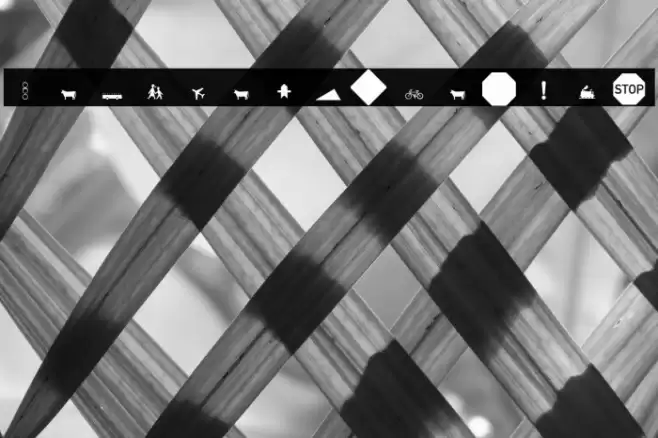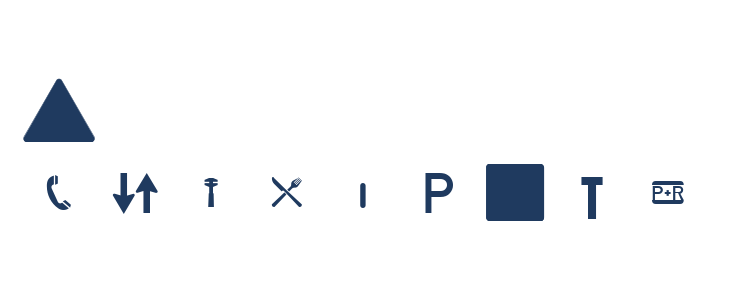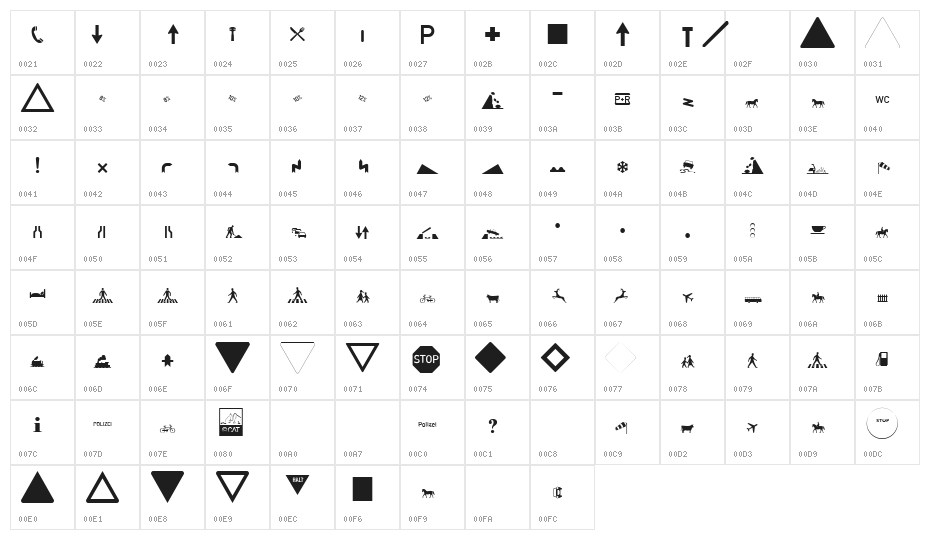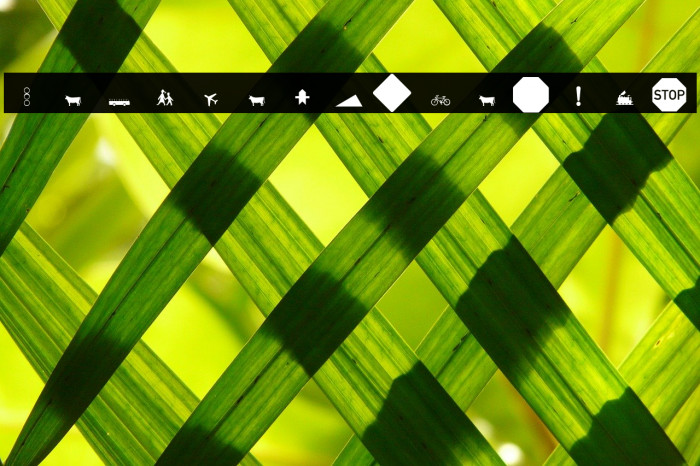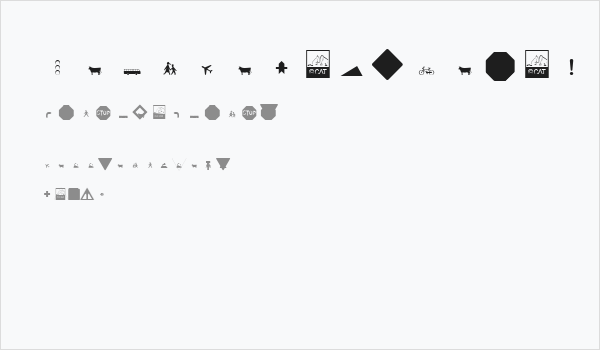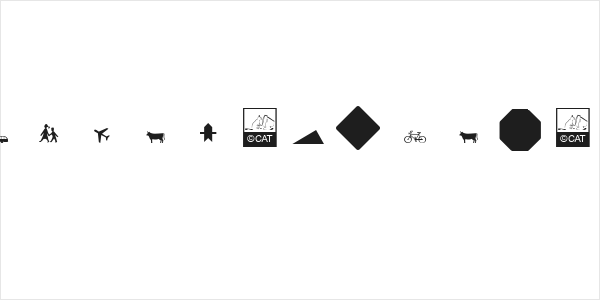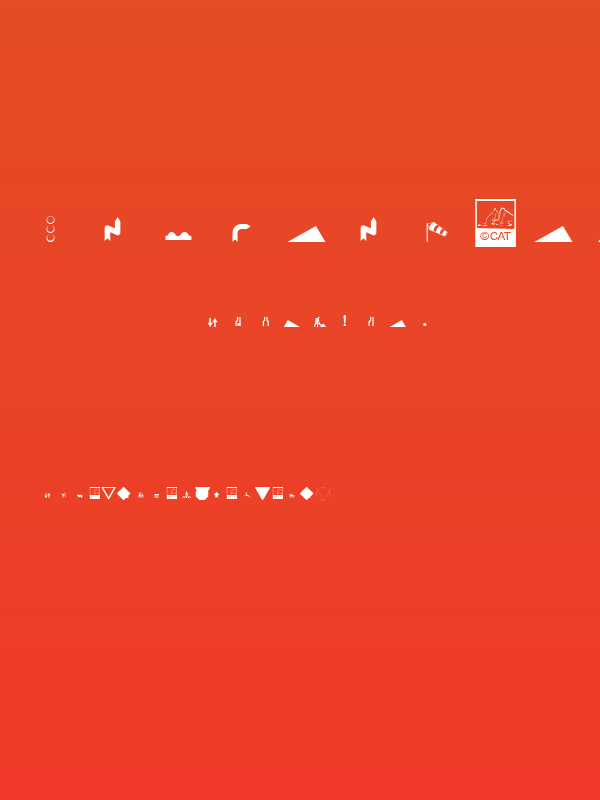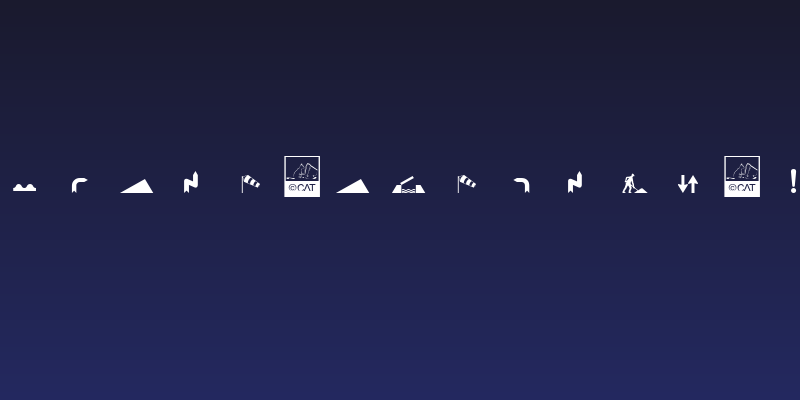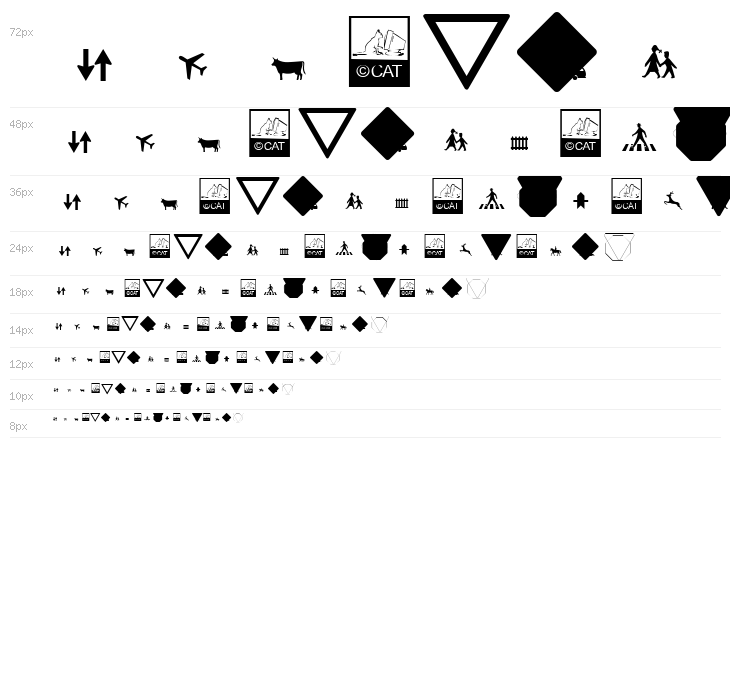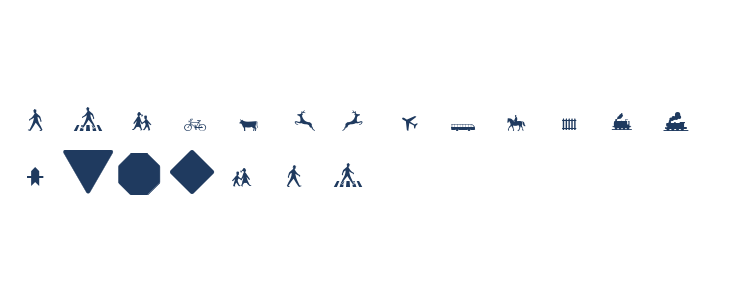
Zeichen Hundert Alt Font
A collection of pictogram-style icons representing various road signs, symbols, and public information graphics, characterized by solid black silhouettes and simple geometric shapes for high legibility.
Bold, geometric pictogram icon set for signage and wayfinding from Uncategorized fonts.
- Proposed Projects: Wayfinding systems, public signage, transportation maps, instructional graphics, infographics.
- Overall Style: Functional, Modern, Minimalist
- Use Case: Signage, Icons, Maps, Instructional graphics